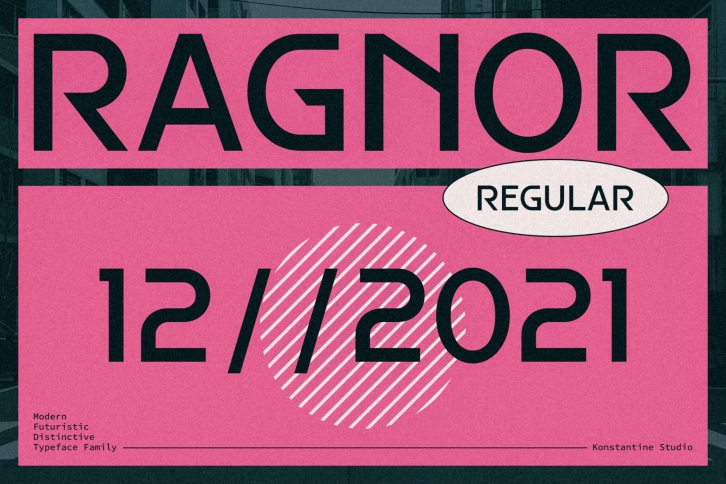
Ragnor is a family of fonts with the vibes of futuristic and slight experimental shape.
Inspired by the trend of the metaverse and digital domination in late 2021. Tailored to suit well with your visual treatment that aims to the longevity of the future era.